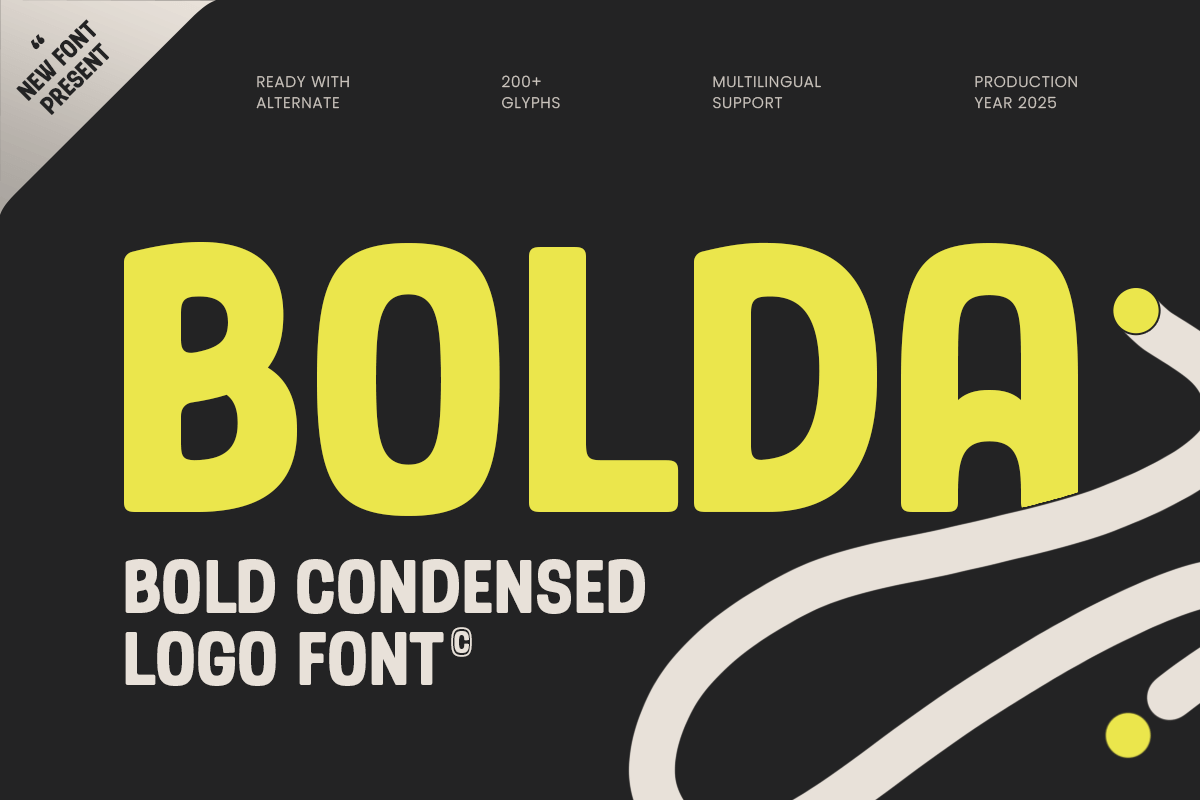
Bolda
-Bold Condensed Logo FontBolda - Bold Condensed Logo Font
Bolda is a bold condensed logo font with soft rounded shapes designed to feel confident, modern, and approachable. Its compact proportions deliver strong impact in tight spaces, while the rounded edges keep the tone friendly and smooth—perfect for brands that want to look bold without feeling aggressive.
Ideal for logotypes, brand identity, packaging, product labels, app branding, and social media campaigns, Bolda performs beautifully on headlines, signage, posters, and UI design. The condensed structure helps your typography stay efficient and readable, making it a great choice for modern startups, lifestyle products, food or beverage branding, and playful-yet-professional visuals.
Whether you’re building a clean minimalist logo or a bold wordmark with warmth, Bolda brings the perfect balance of strength, softness, and contemporary style across print and digital projects.
Bolda – Bold Rounded Condensed Features
Bold condensed letterforms optimized for logo design
Soft rounded terminals for a friendly, approachable tone
Perfect for branding, wordmarks, packaging, and labels
Strong readability for headlines, signage, and UI design
Great for both digital screens and print production
OpenType features for flexible, polished typography
Make your branding bold, warm, and memorable with Bolda—built for soft-rounded condensed logo impact. 💛✨